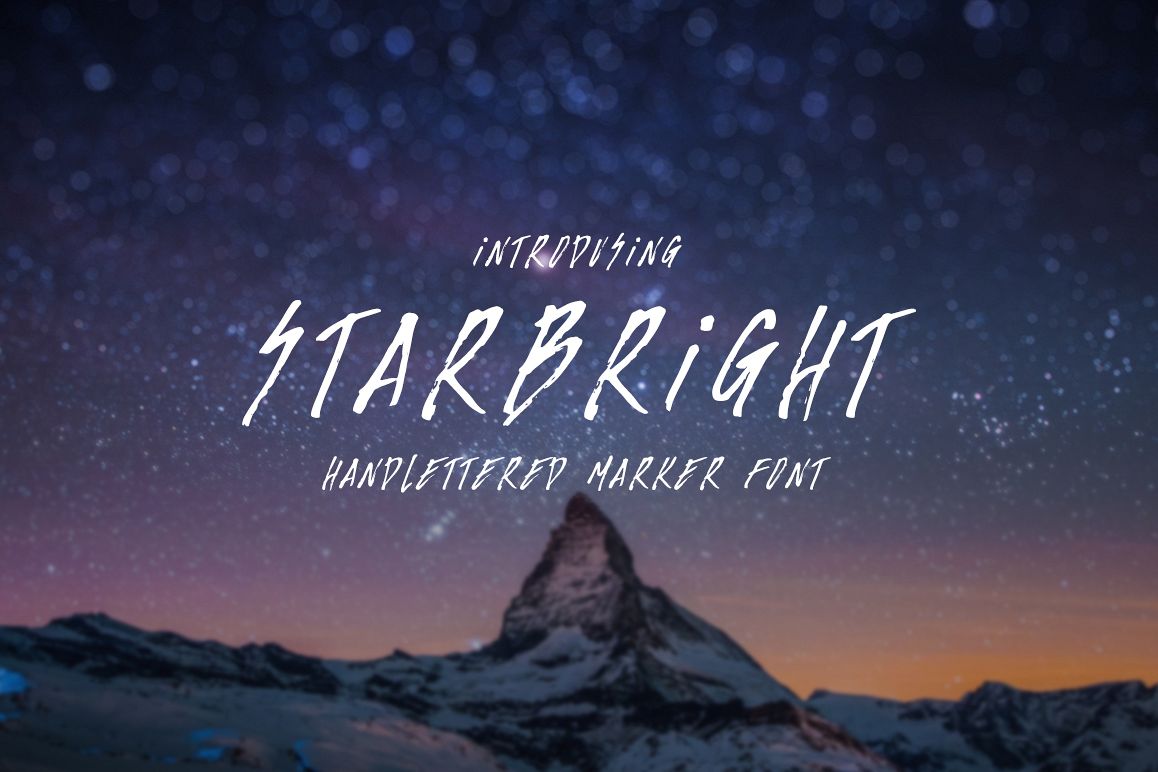
Starbright handwritten script
Starbright is a highly detailed dry marker handcrafted font. Very suitable for digital lettering, branding materials, t-shirt, print, business cards, quotes, logo, poster, t-shirt, nature photography and applicable for any graphic design.
• Support ALL European Languages